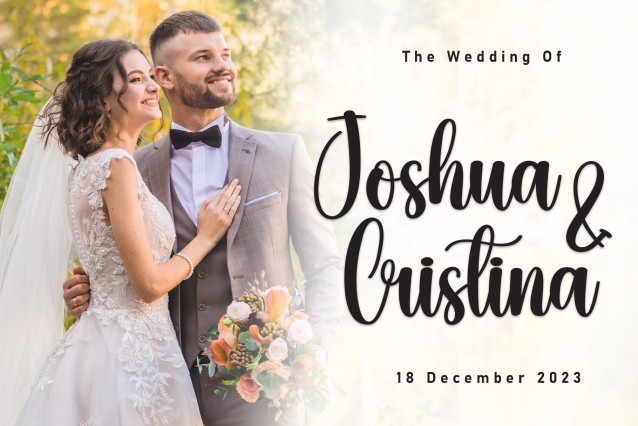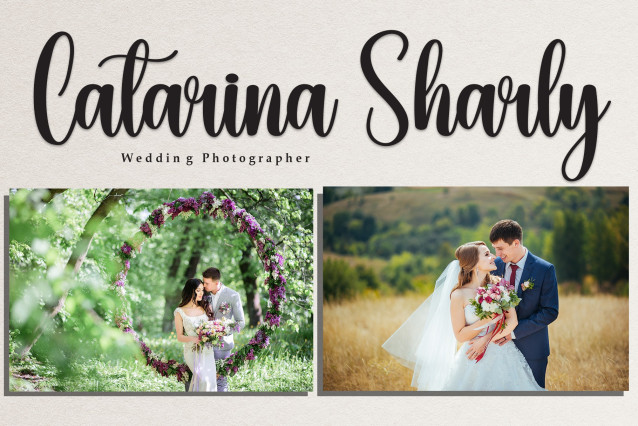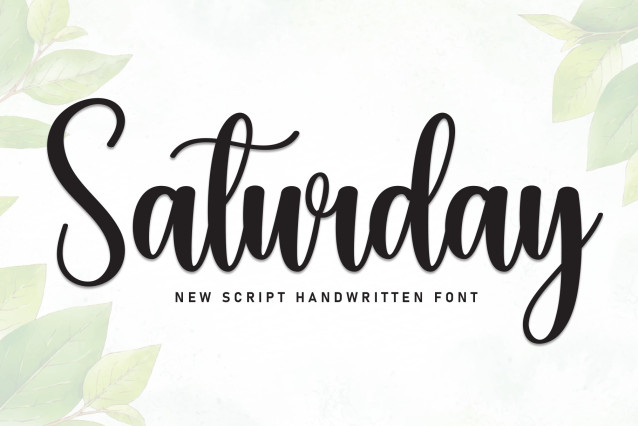
Saturday Script Type
Saturday Script Type is a stylish handwritten script font that captures elegance and playfulness in every stroke. With flowing curves and a natural rhythm, it adds a personal, charming touch to invitations, branding, and social media. Its graceful design brings warmth, sophistication, and creativity to any project.